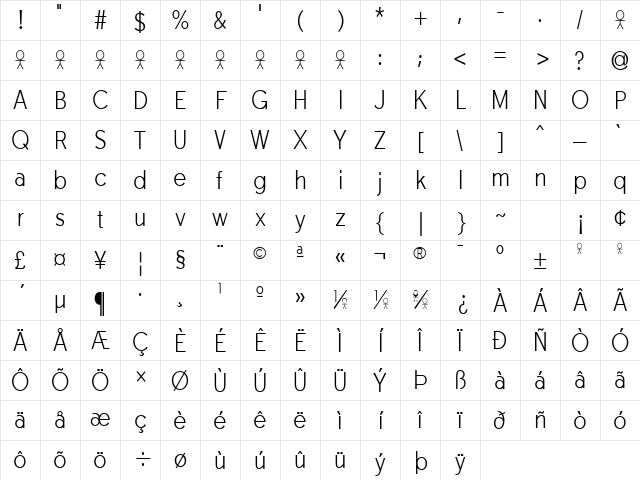
Tabarra NarrowLight Regular
Foundry: Fernando Haro
Designer: deFharo
Design Context for Tabarra NarrowLight
Tabarra NarrowLight is a composed and adaptable typeface that performs quietly and consistently across a wide range of design contexts. Its slender proportions lend an understated elegance to any composition. Its narrow stance lets it pack a punch even in space-constrained designs.
Who designed the Tabarra NarrowLight Regular font?